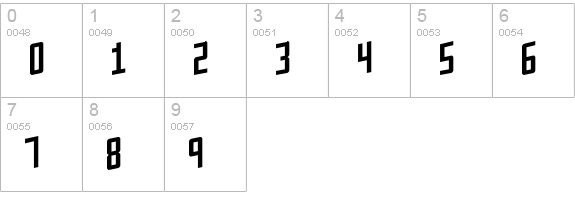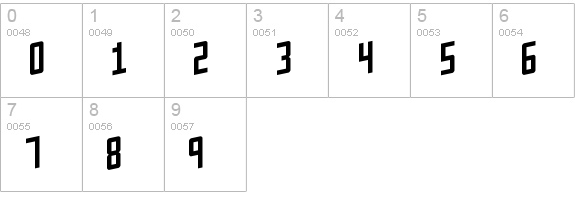
Flaphead Font Details
Flaphead font is a charming and playful typeface that exudes a sense of whimsy and creativity. With its quirky design and unique flair, this font is perfect for adding a fun and lighthearted touch to any project. Whether you're designing a poster, flyer, or invitation, Flaphead font is sure to make your text stand out. And the best part? Flaphead font is completely free to download at FontsMarket.com. That's right, you can get your hands on this delightful font without spending a dime. So why wait? Add a touch of personality to your designs with Flaphead font today!